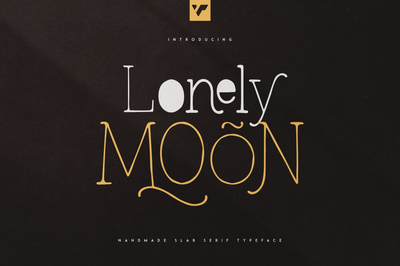
Lonely Moon Handwritten Typeface
Introducing Lonely Moon – Handmade typeface – 3 fonts
Lonely Moon is handwritten and retro slab serif typeface loaded with 3 fonts, alternate, ligature glyphs and multilingual support to enchant your next project. Very versatile fonts that works great in large and small sizes.
Lonely Moon is perfect for branding projects, home-ware designs, product packaging, magazine headers – or simply as a stylish text overlay to any background image.
- 3 styles
- Uppercase, lowercase, numeral, punctuation & Symbol
- alternate glyphs
- ligature glyphs